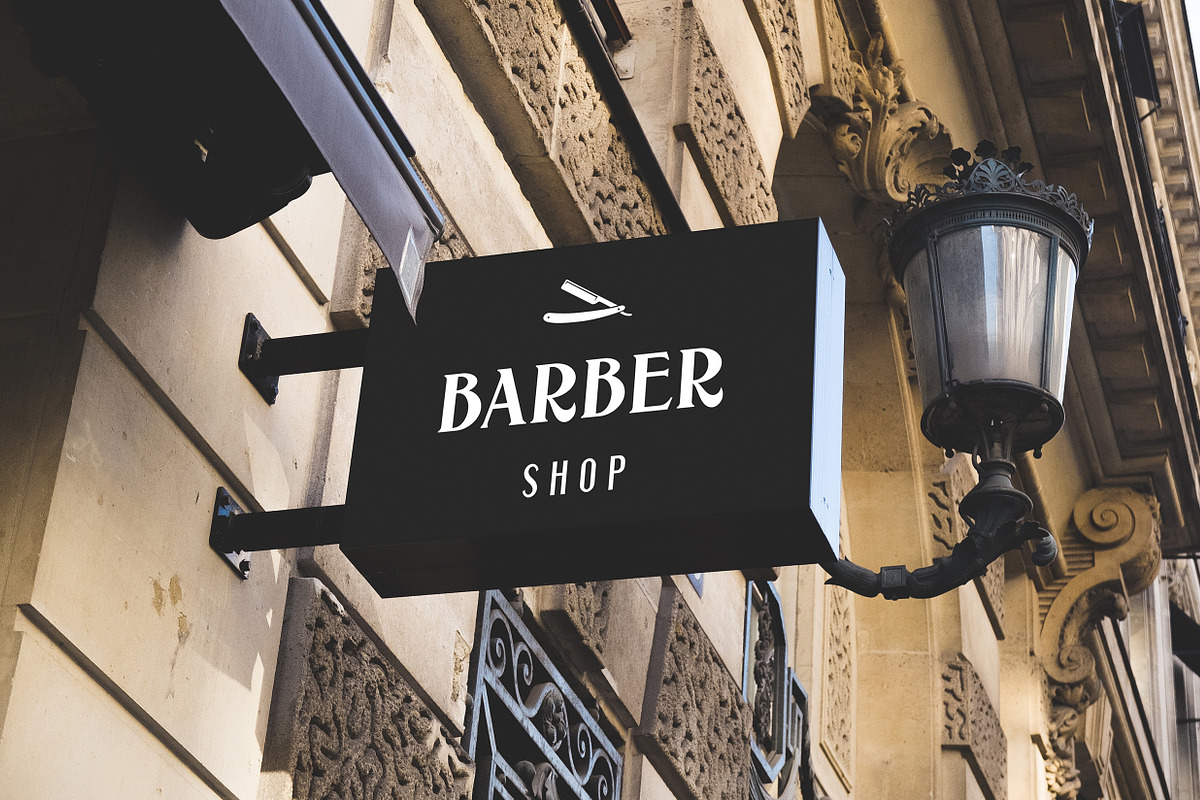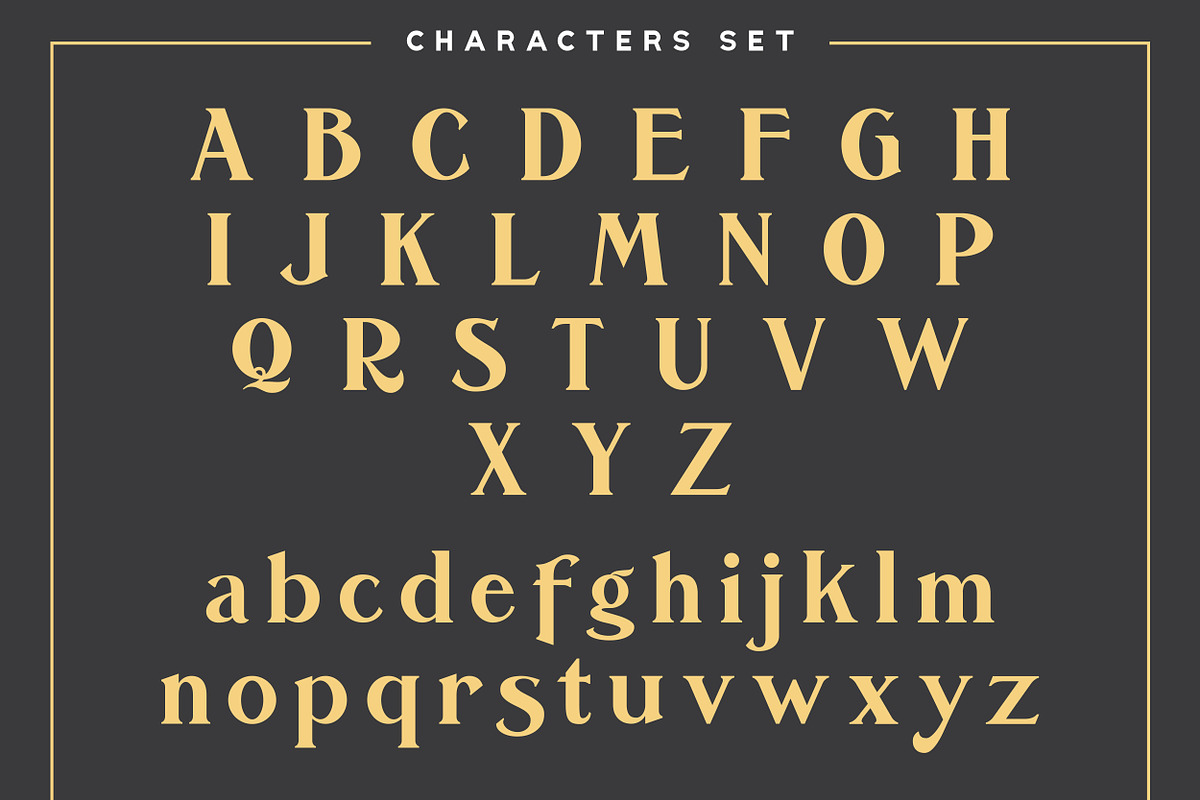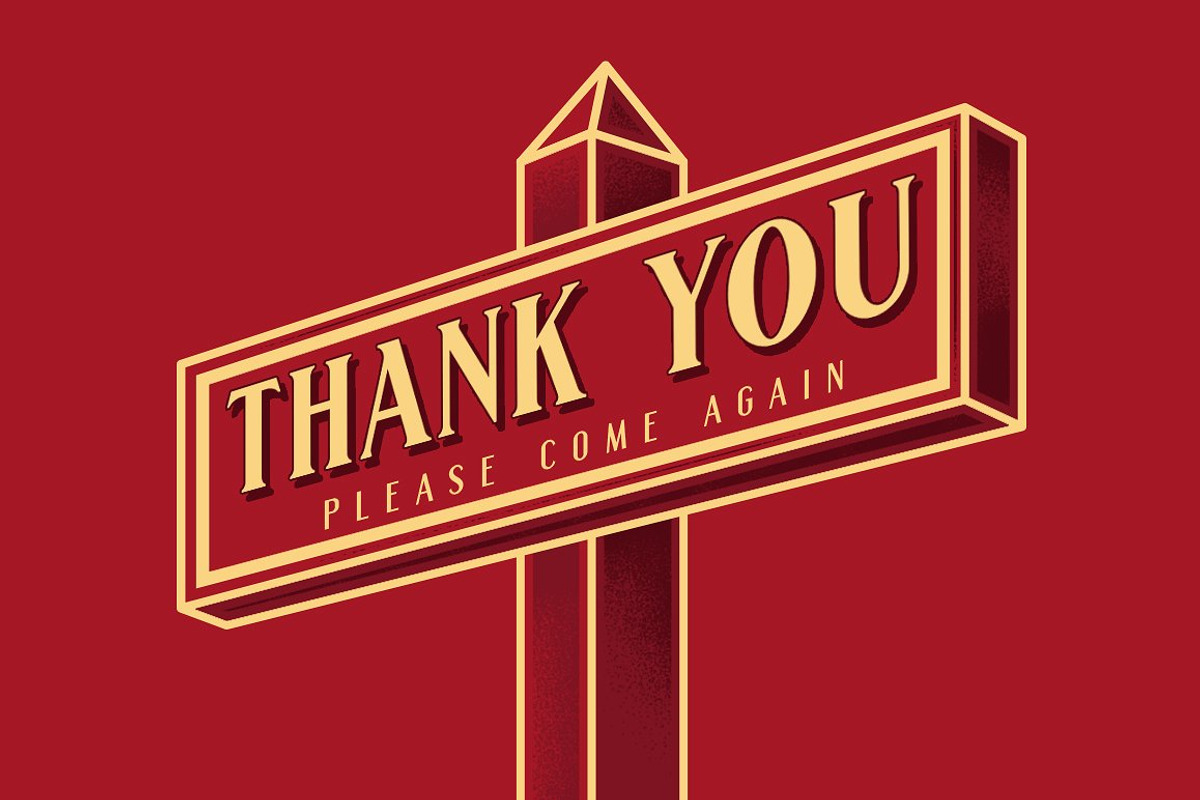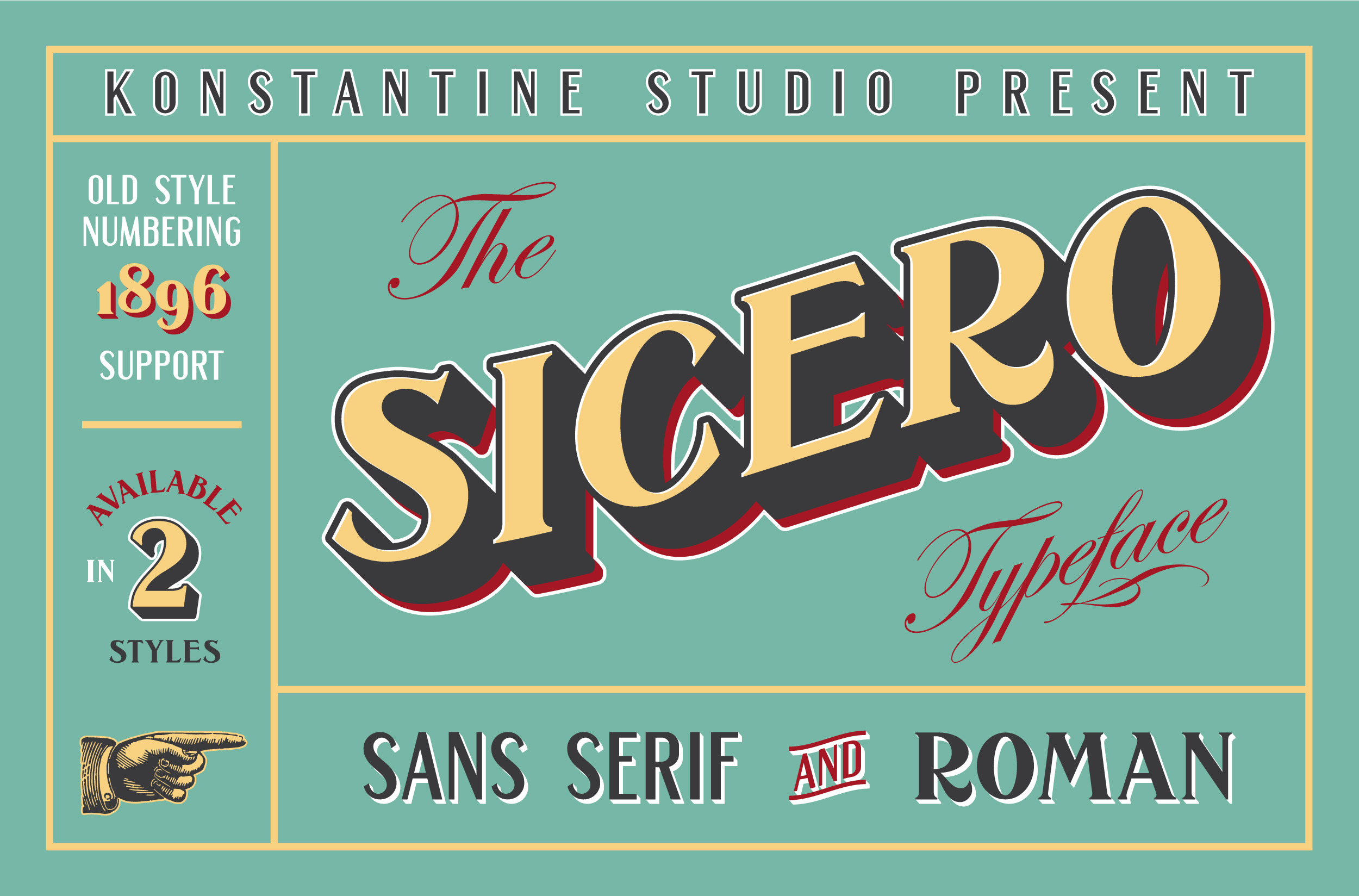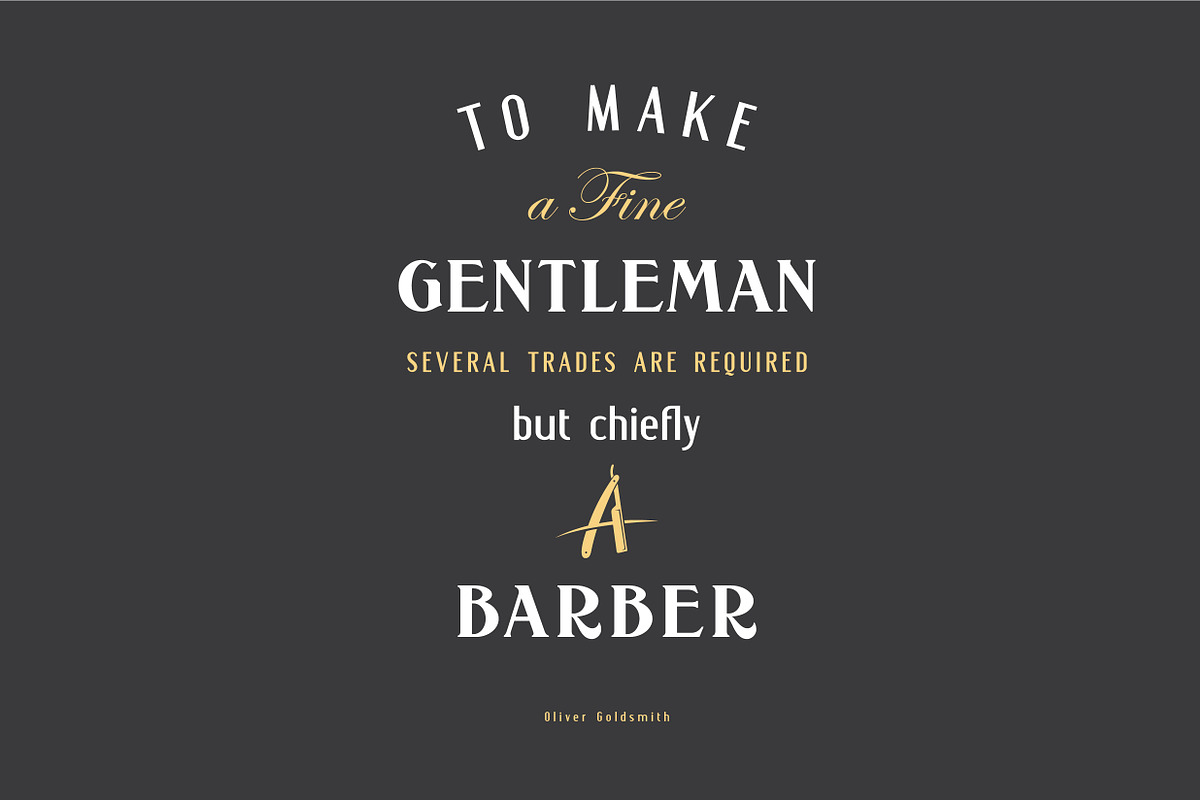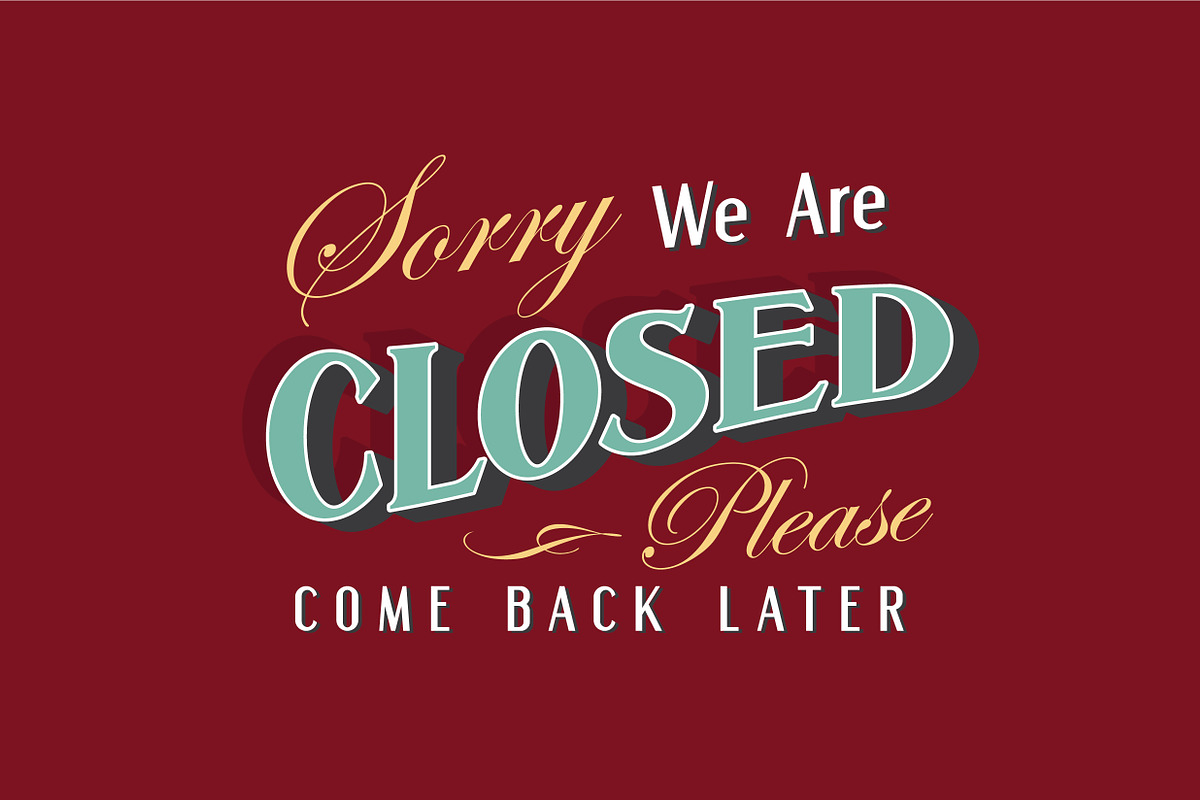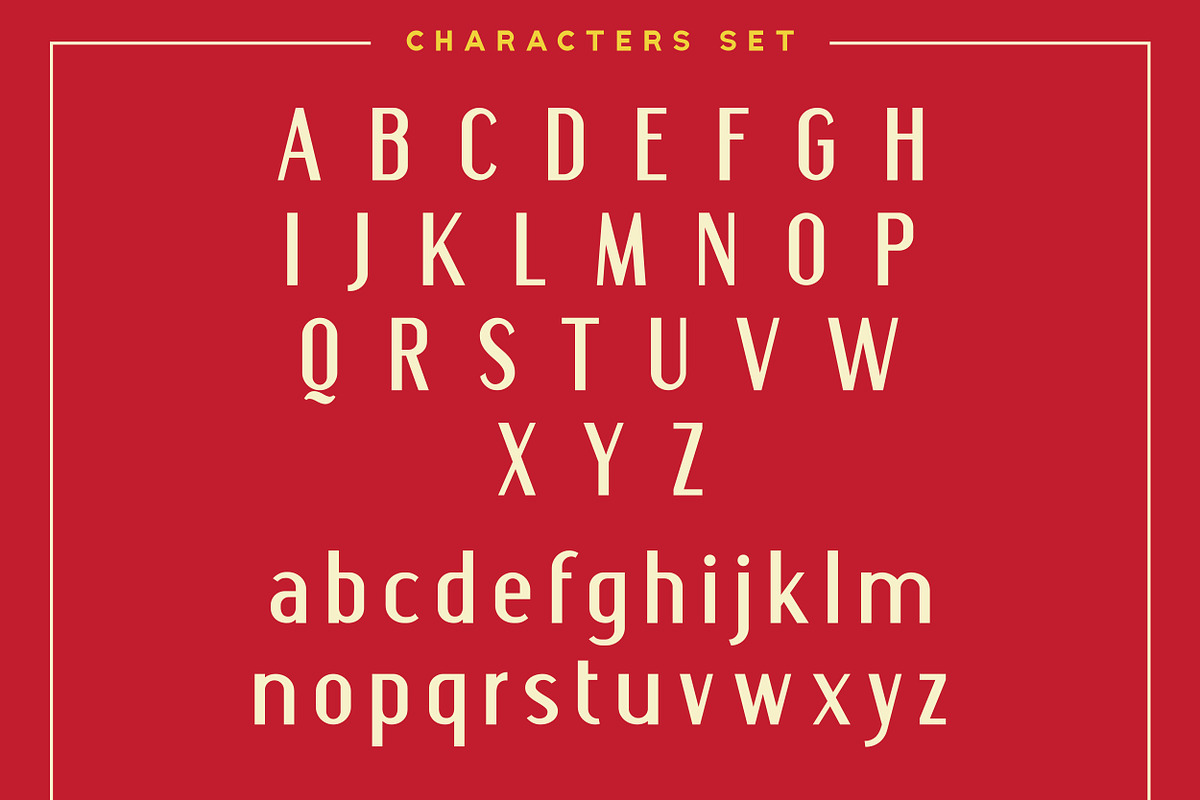
Sicero Vintage Logo Branding Fonts
Back in 1800 - 1900, the Serif fonts or known as Roman styles are very popular. Used in so many media, came from calligraphic technique and refined till it became a solid style even so many sign painters use this letter style back in that era.
And today, these kinda style still got their fans who love the elegant yet clean solid style. That's what this came for. Please welcome, Sicero Duo Fonts. Its a dynamic duo fonts that came in Serif and Sans-Serif style which is perfectly fit to each other. Bring the old vibes instantly to your project with them :)
- Sicero Roman A Serif style font with implementations of old-era style, clean and done in click-by-click to fulfil your perfectionist personal. And it comes in Old Style Numbering too, to make the vibes stronger in the whole vintage design when using it.
-Sicero Sans A Sans-Serif font to make a good pair with Sicero Roman still holding those old vibes but a little bit modern touch in here to reach wider range of trends. Use it all alone is still good to go if you want something different with not pairing it with Sicero Roman as well.